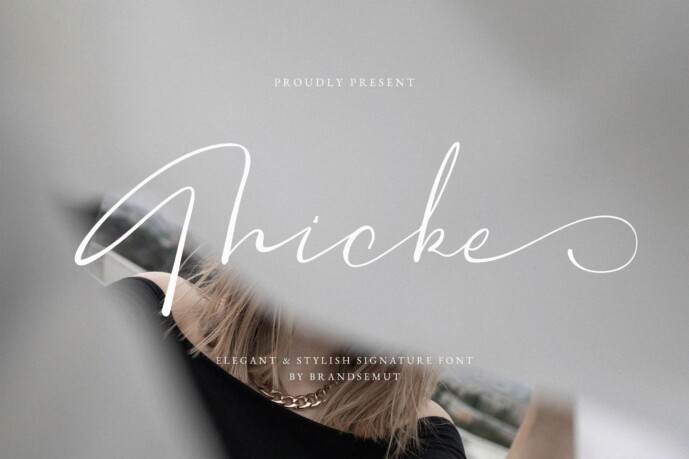
Thicke Font
Introducing the new Thicke Signature Font, an elegant and stylish handwritten script that you can use to perfect your design.
You will get a full set of lowercase and uppercase letters, multilingual, numerals, and punctuation.